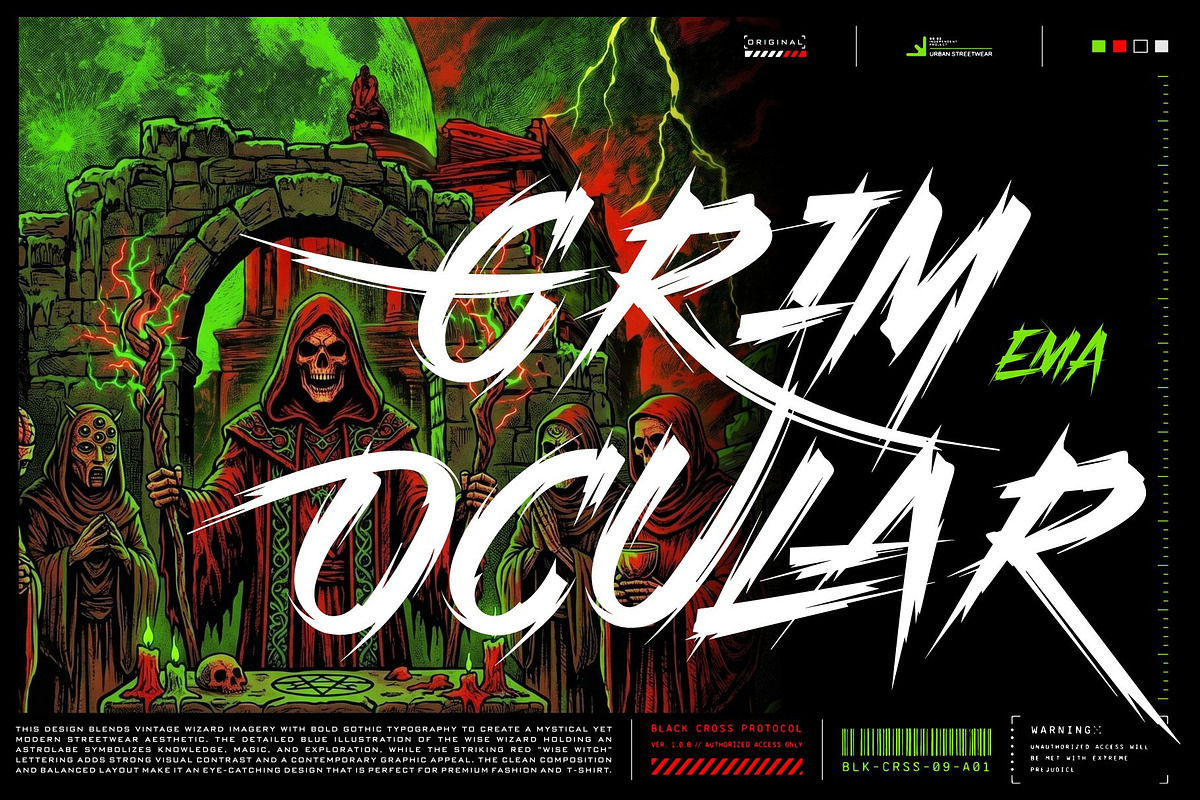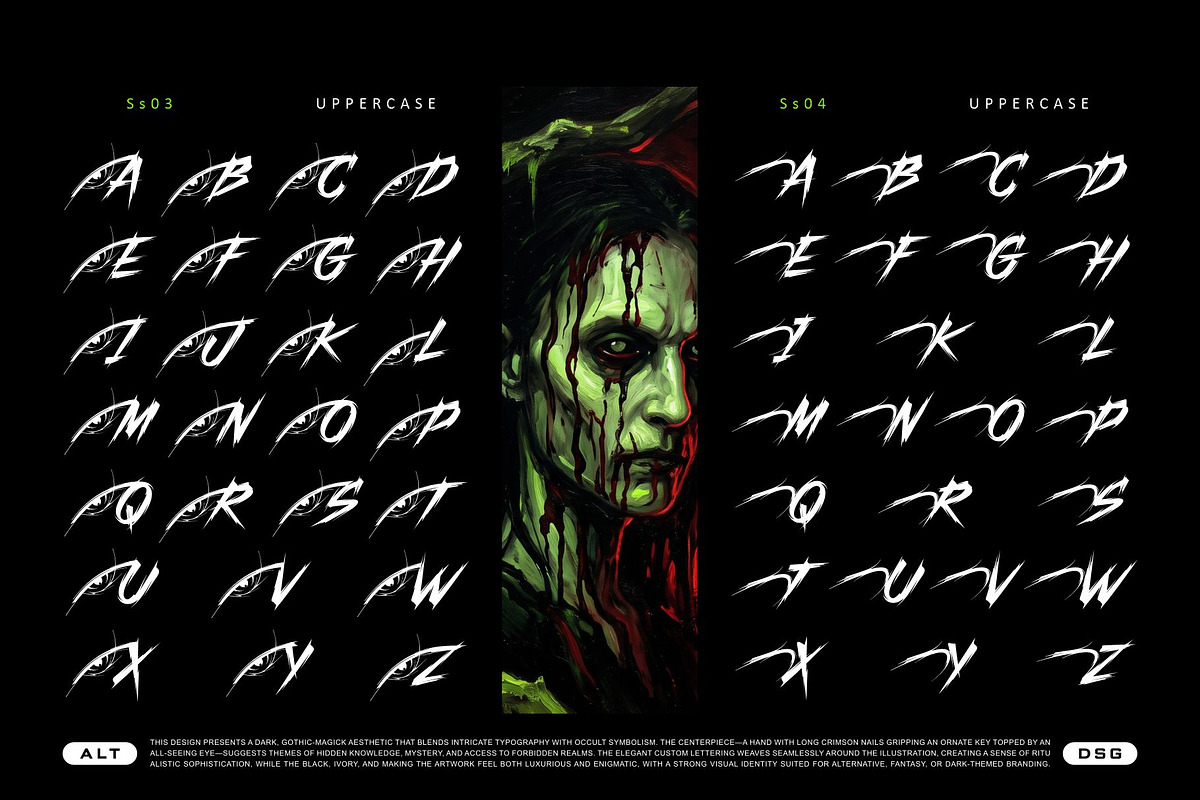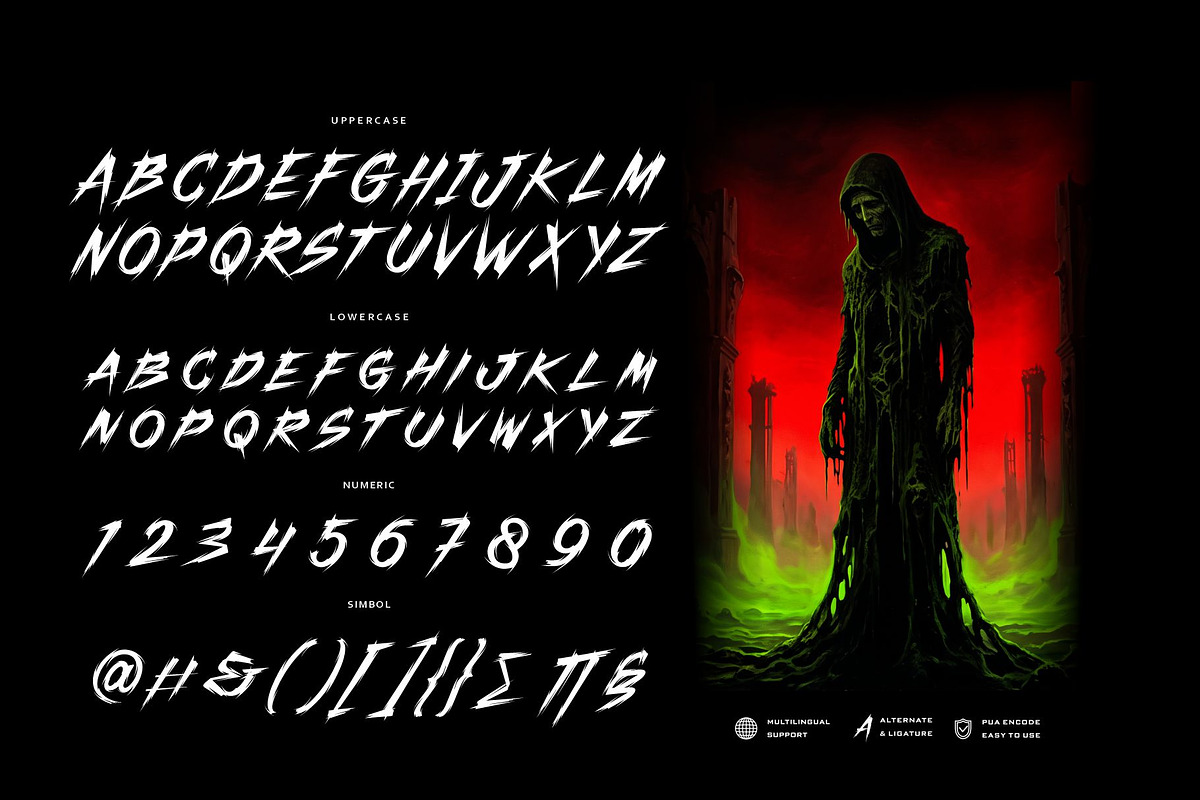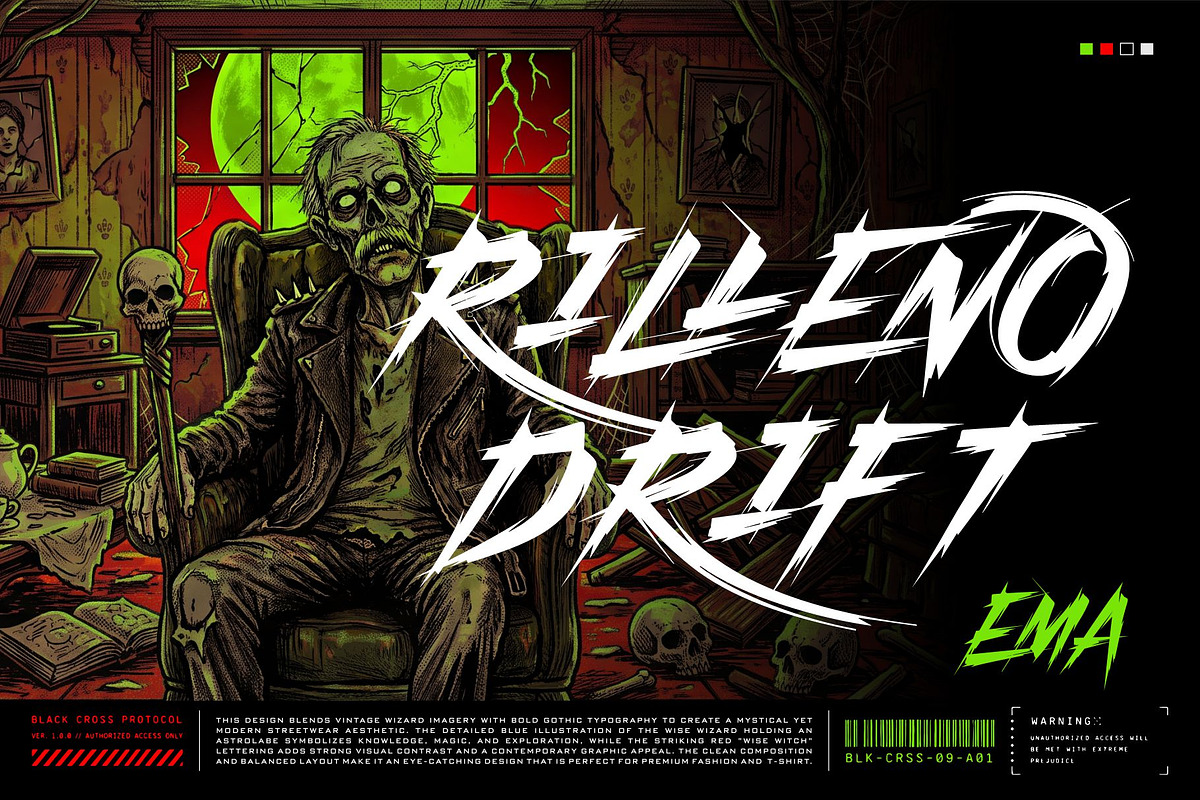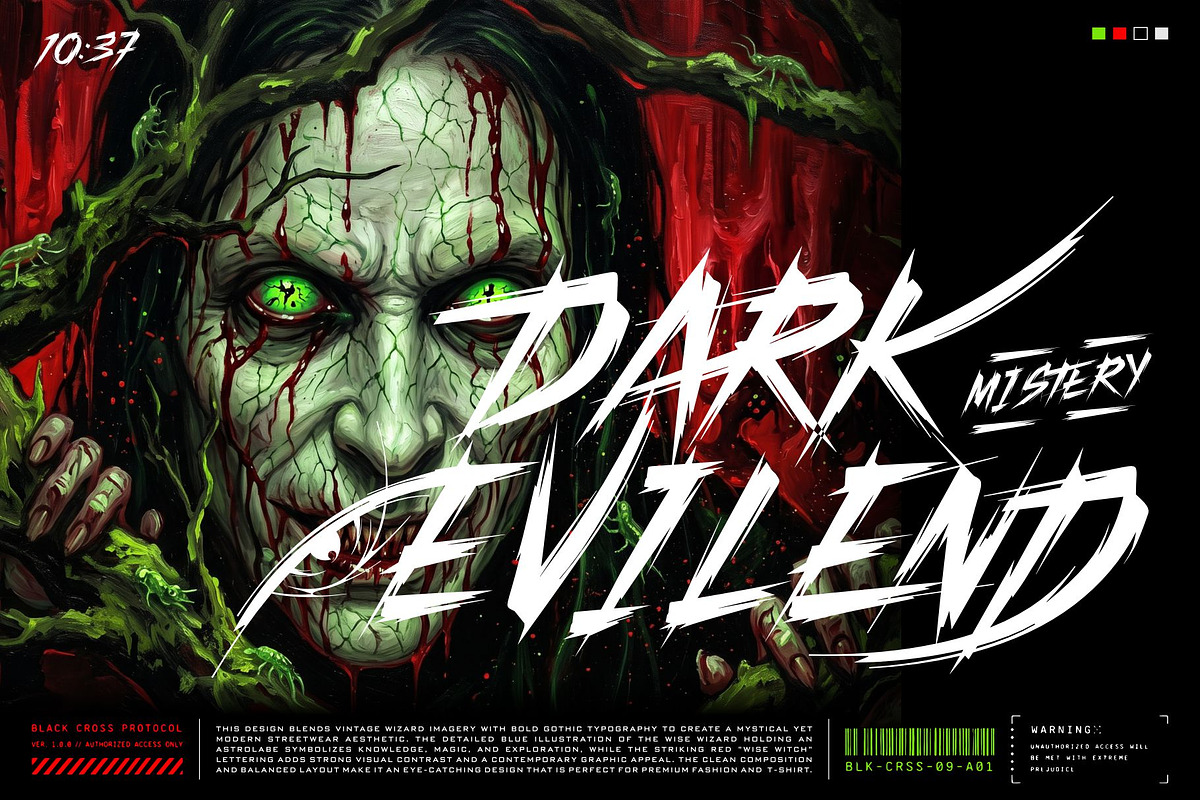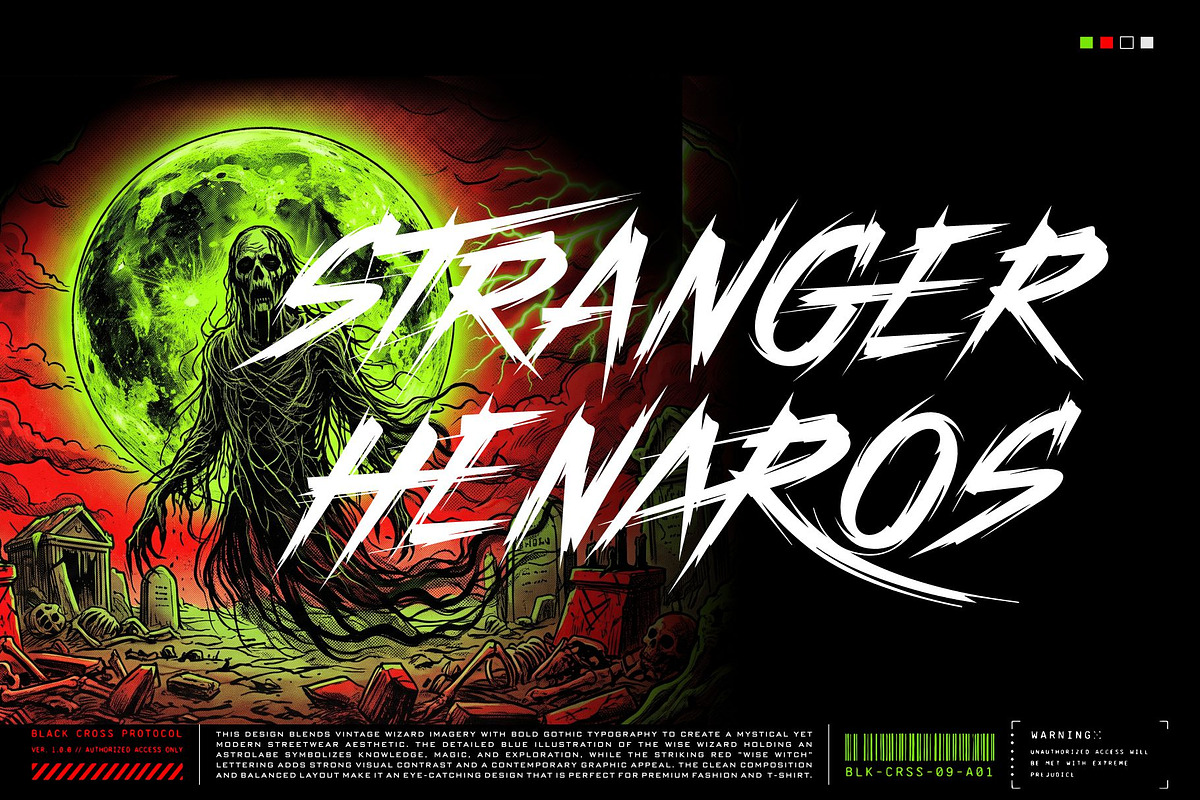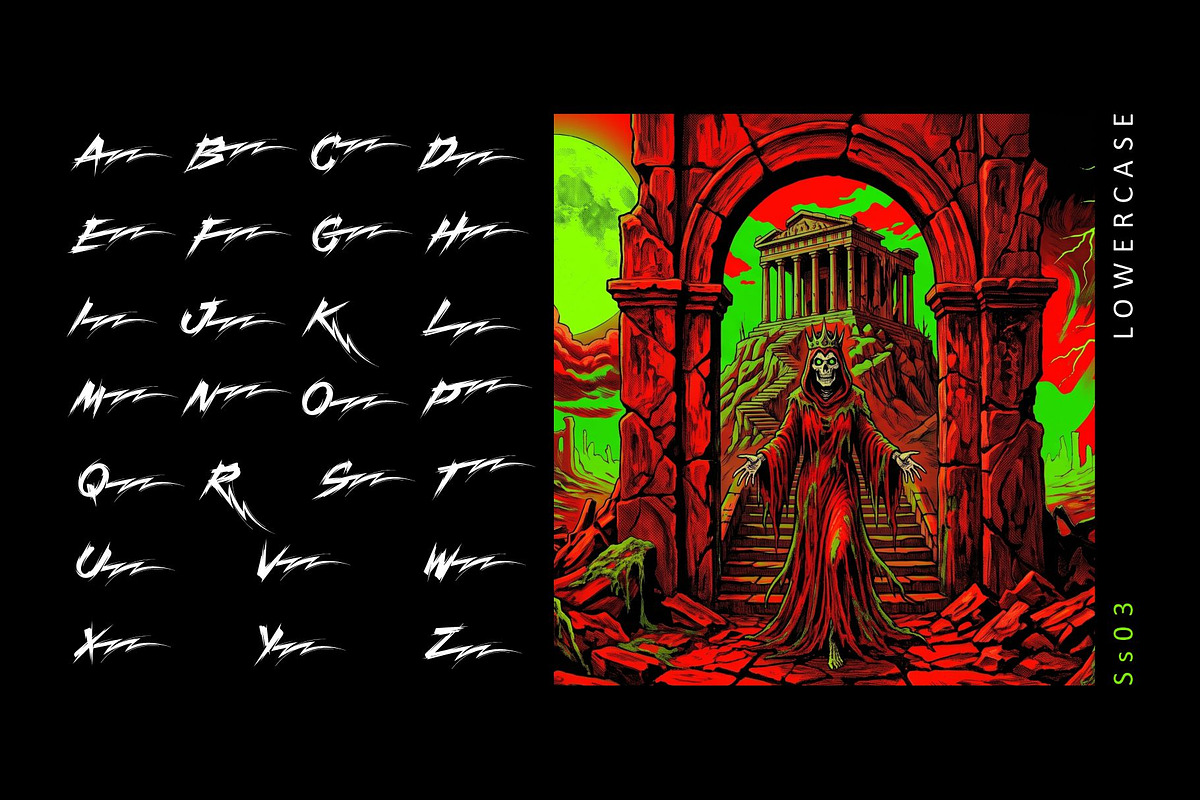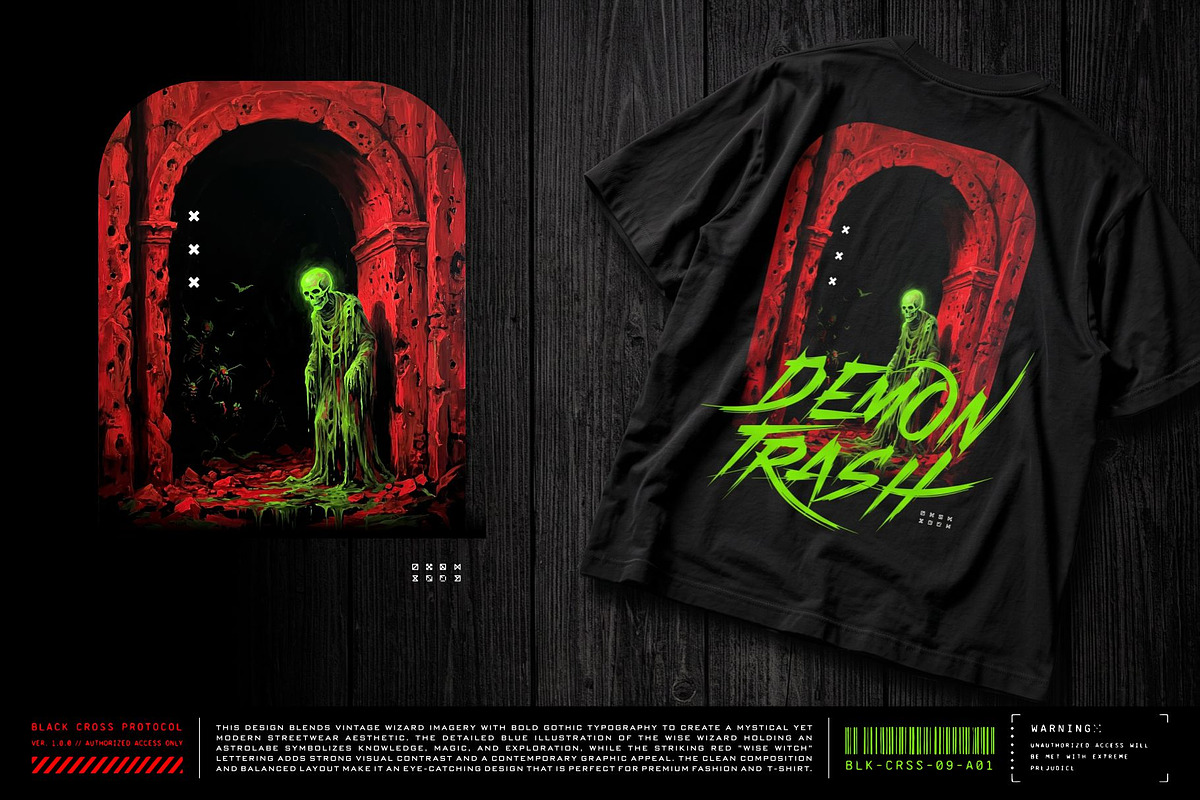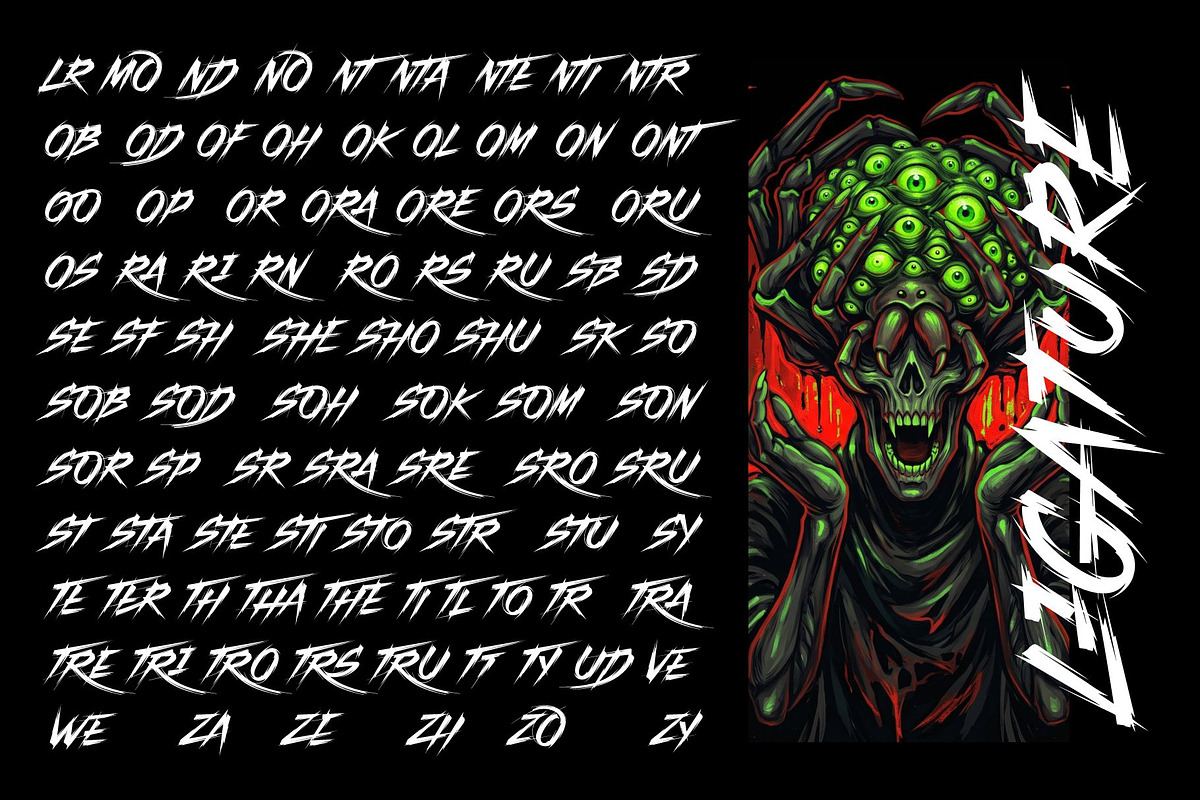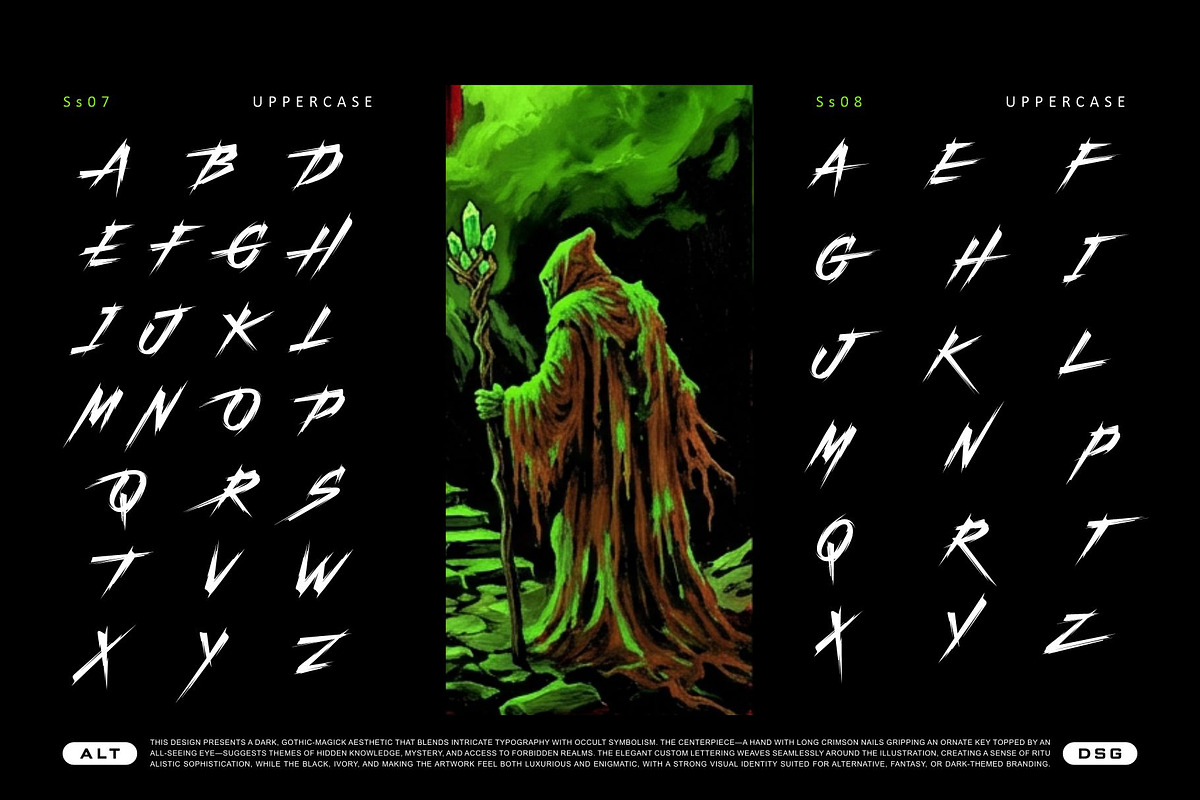
Trash Brutal Typeface
Unleash raw energy and unapologetic chaos with Trash Brutal, a striking broken-brush typeface designed to make a massive impact. Forged with a dark, gothic-magick aesthetic, this font perfectly captures the gritty essence of urban streetwear and the intense vibes of the alternative and heavy metal scenes.
Trash Brutal isn't just a font; it's a visual statement. The aggressive brush strokes, combined with intricate, jagged details, give your artwork a timeless yet fiercely modern contrast. Whether you are designing premium streetwear apparel, dark fantasy book covers, or striking poster art, Trash Brutal delivers a commanding visual identity that demands attention.
Packed with a massive character set, this typeface offers endless customization to ensure your typography never looks repetitive. Mix and match the extensive stylistic alternates and ligatures to create a custom, hand-painted feel that perfectly fits your project's unique dark aesthetic.
Urban streetwear and premium apparel design
Band merchandise (Metal, Punk, Hardcore, Alternative)
Horror, thriller, and dark fantasy movie posters or book covers
Edgy branding, logo design, and packaging
Tattoo studio branding and gaming graphics
Halloween and occult-themed event promotions
Massive Character Set: Includes an incredible 909 glyphs for ultimate creative flexibility.
Stylistic Alternates: Features 8 complete Stylistic Sets (ss01 - ss08) to completely change the mood and shape of your lettering.
Custom Ligatures: A wide range of double-letter ligatures to maintain a natural, authentic brush stroke rhythm.
Complete Standard Set: Uppercase, lowercase, numerals, and a full range of punctuation and symbols.
Multilingual Support: Broad language support for global projects.
PUA Encoded: Easy access to all extra characters and alternates without needing special design software.